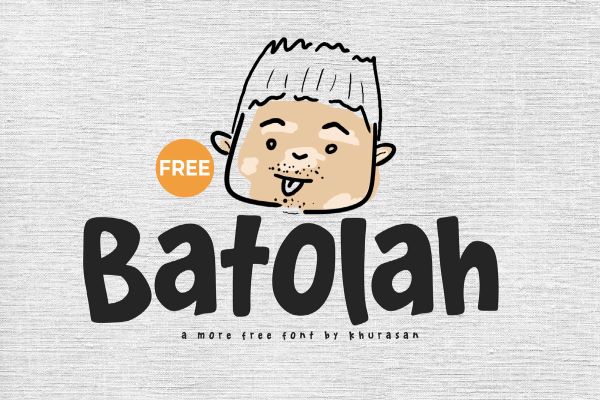
Batolah Font
Batolah by syaf rizal (Khurasan Studio) is a free modern font with a happy, cheerful, and decidedly sun-drenched personality — its thick, energetic letterforms carrying the spontaneous confidence of hand-lettering done with a wide-tipped marker at full speed. Decorative and creative without being cluttered, Batolah channels a modern summer aesthetic that makes it immediately compelling for display applications including posters, branding, packaging, social media graphics, and any project that wants its typography to radiate warmth and energy. Released fully free for both personal and commercial use — no restrictions.